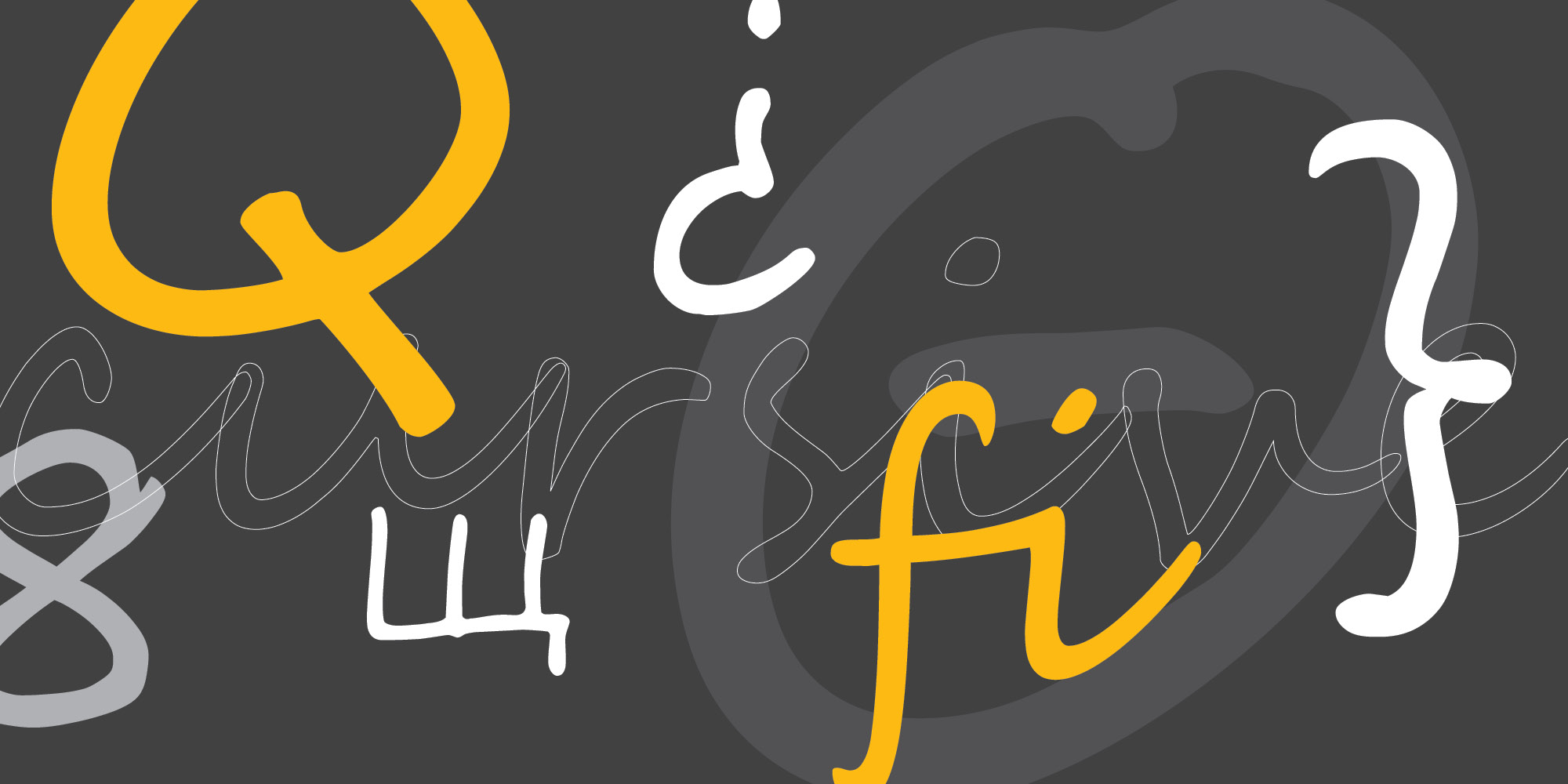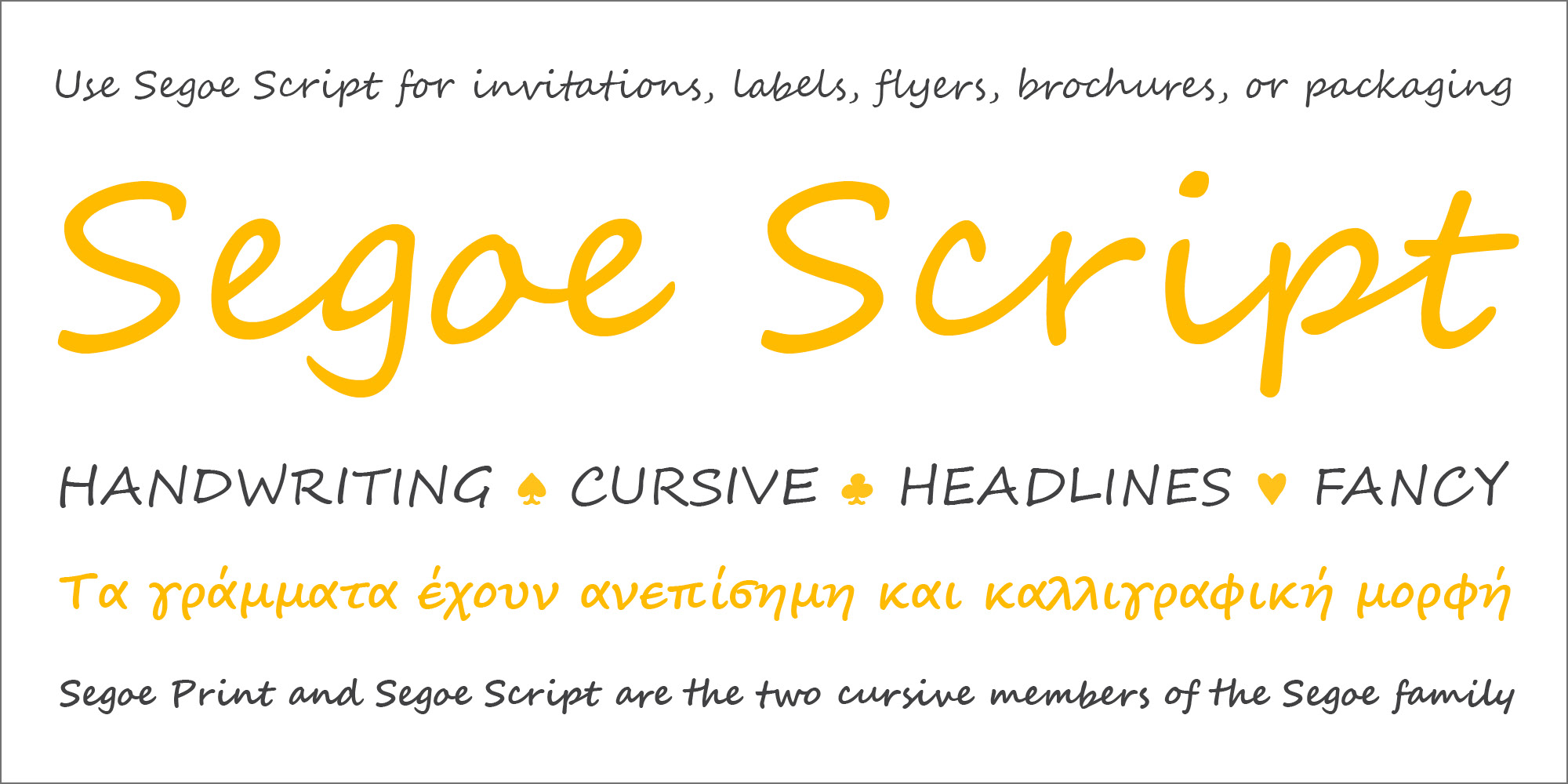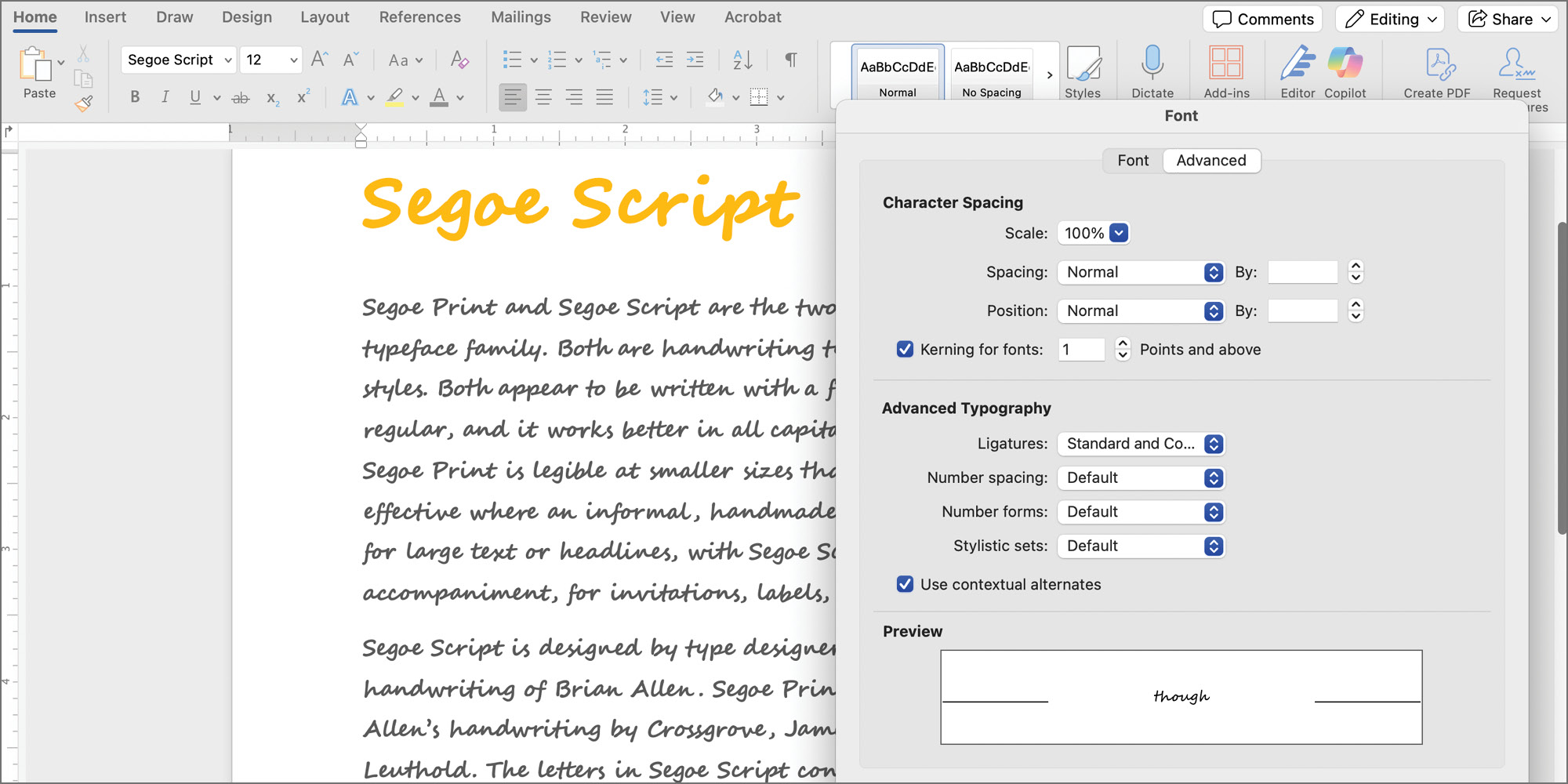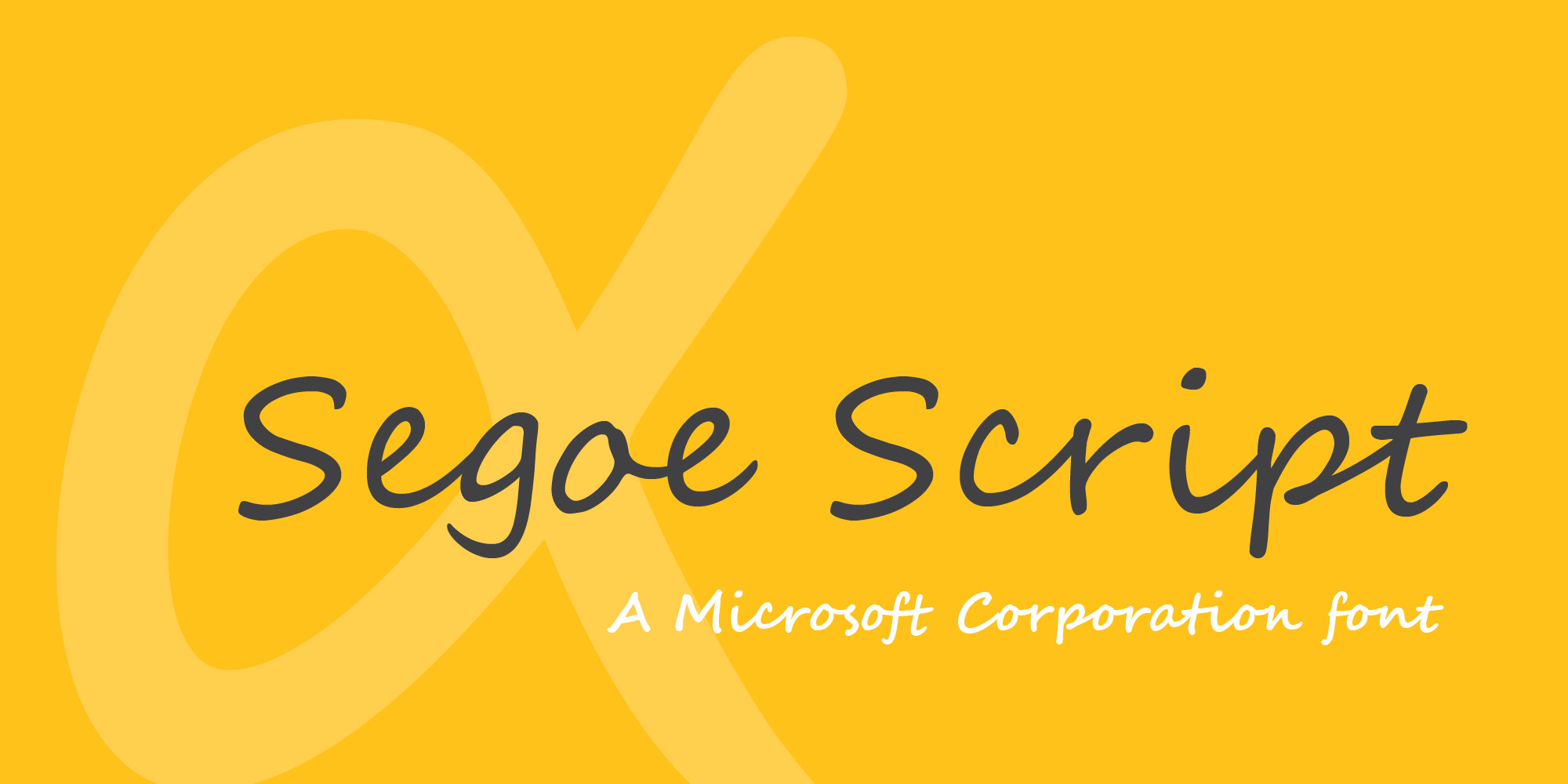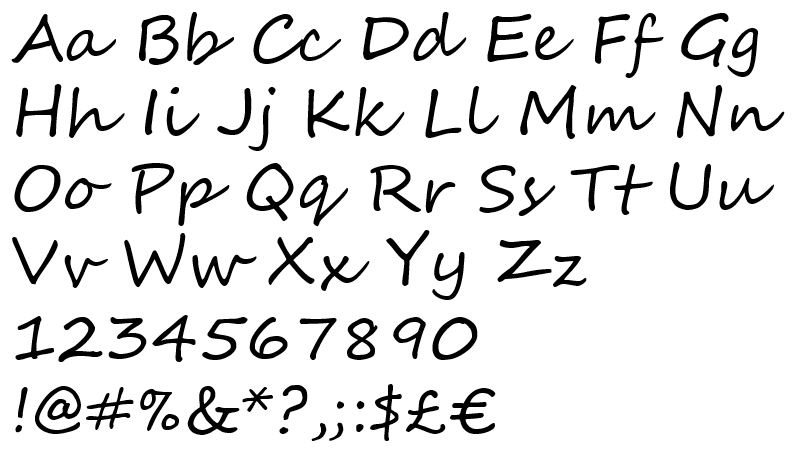
Font information Segoe Print and Segoe Script are the two cursive members of the Segoe typeface family. Both are handwriting typefaces, with slightly different styles. Both appear to be written with a felt-tip pen. Segoe Print is more regular, and it works better in all capital letters than Segoe Script does. Segoe Print is legible at smaller sizes than Segoe Script. Both are effective where an informal, handmade look is needed. Use Segoe Print for large text or headlines, with Segoe Script as a fancier accompaniment, for invitations, labels, flyers, brochures, or packaging. Segoe Script is designed by type designer Carl Crossgrove, based on the handwriting of Brian Allen. Segoe Print is an adaptation of his handwriting by Crossgrove, James Grieshaber, and Karl Leuthold. The letters in Segoe Script connect, like cursive handwriting, while the letters in Segoe Print are independent, though still informal and cursive in form.
| Styles & Weights | Segoe Script Bold |
Segoe Script